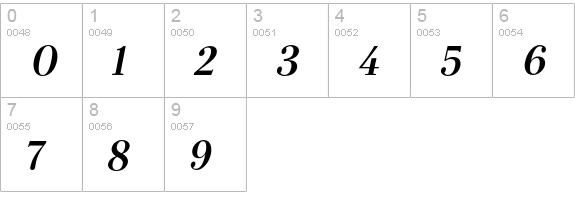
Serif72 Beta Bold Italic Font Details
Serif72 Beta Bold Italic is a strong, high-contrast, italic variant in the Serif72 typeface family \xE2\x80\x94 well suited to headlines, attention-grabbing titles, and strong calls-to-action.
Discover the timeless elegance and sophistication of Serif72 Beta Bold Italic font, a striking typeface designed to make a bold statement in your designs. Perfect for creating eye-catching headlines, posters, and branding materials, this font exudes a sense of classic charm with a modern twist. Featuring strong, confident serifs and a sleek italic design, Serif72 Beta Bold Italic font commands attention and adds a touch of refinement to any project. Its bold weight ensures high visibility and readability, making it ideal for both print and digital applications. And the best part? Serif72 Beta Bold Italic font is available for free download at FontsMarket.com. So go ahead, elevate your designs with this stunning typeface and make a lasting impression on your audience.